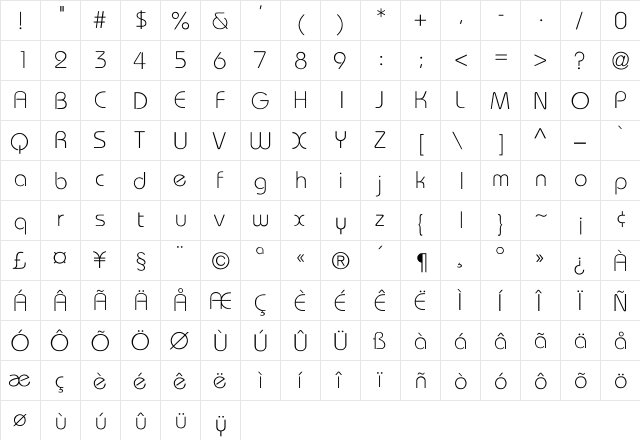
Bauhaus_Light-Normal Regular
Bauhaus_Light-Normal takes a measured approach to typography — its balanced proportions and neutral character make it a reliable workhorse for both digital and print work. The delicate stroke weight brings airiness and refinement to layouts.